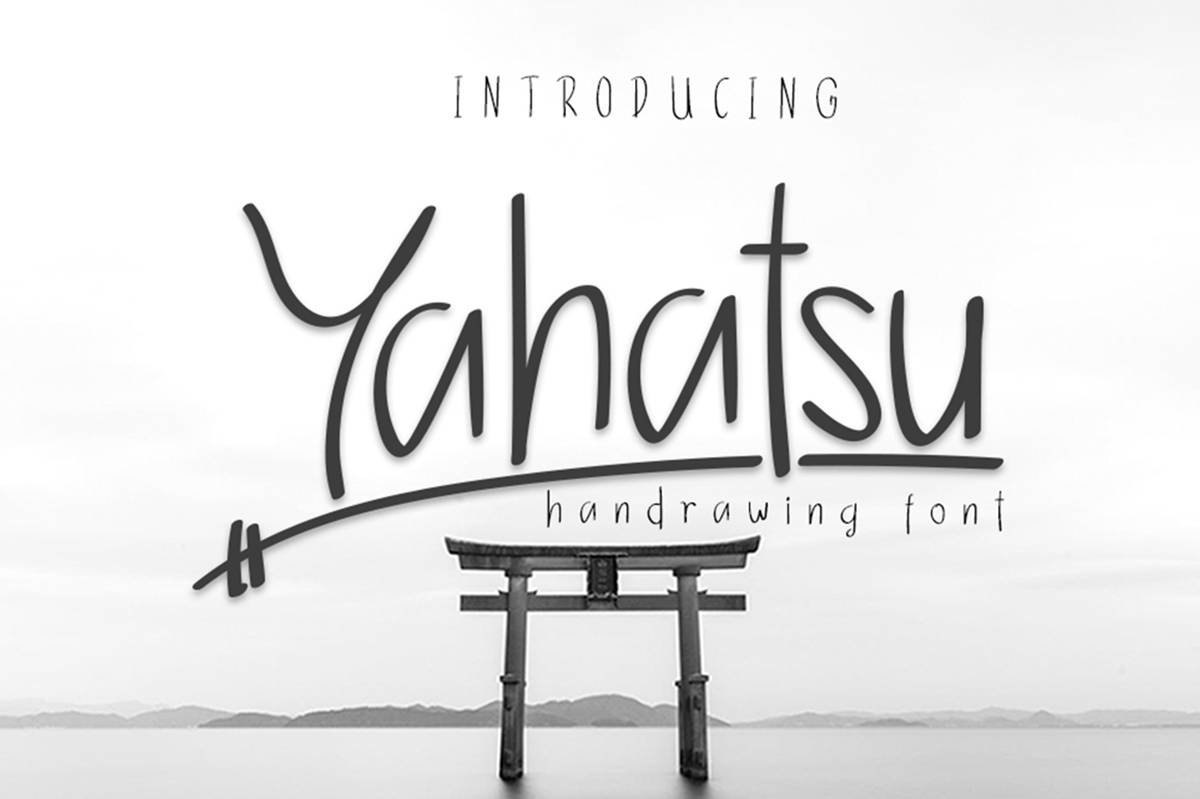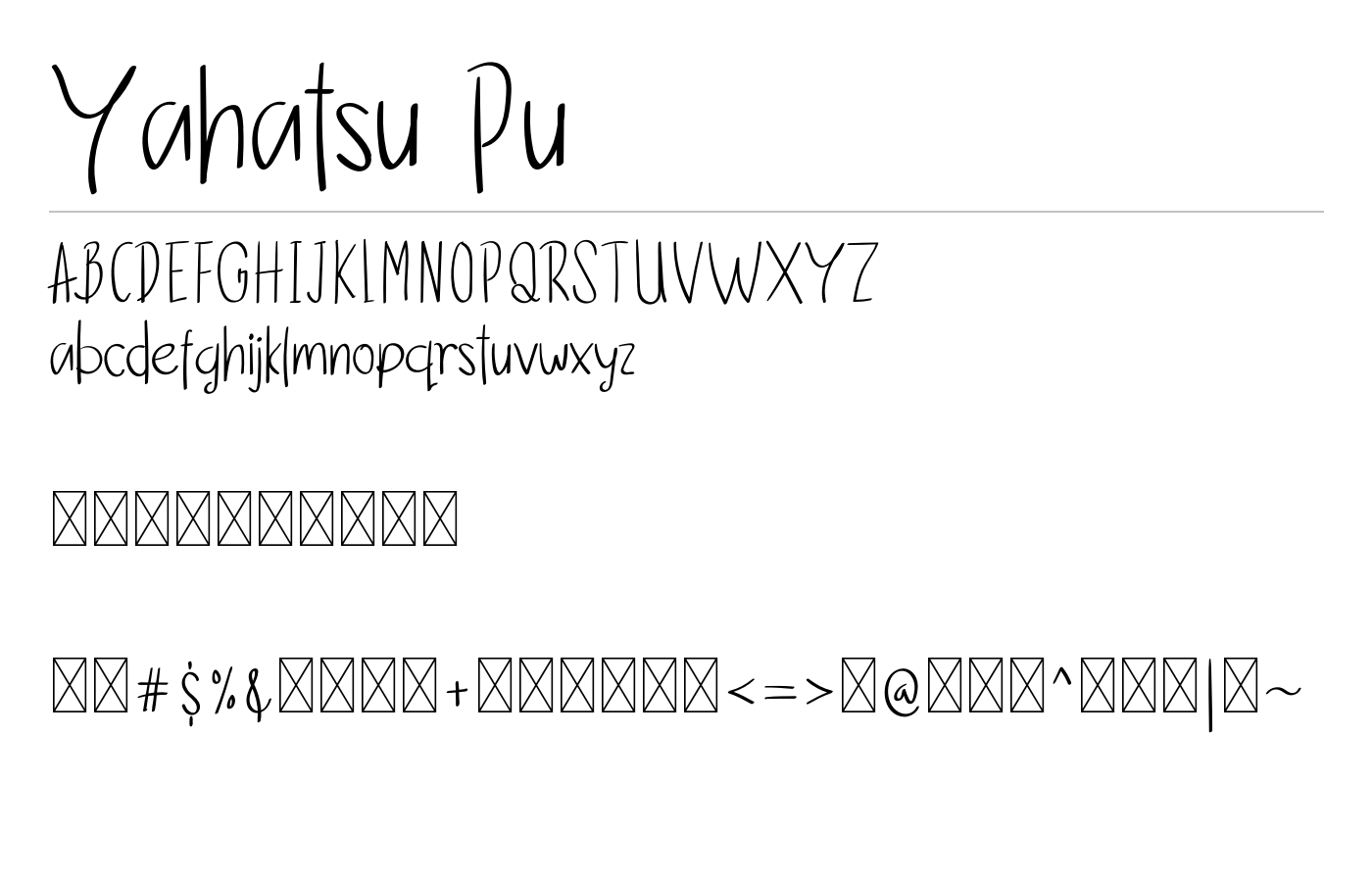
Yahatsu Font is a playful, handwritten sans serif with tall, narrow letterforms and a light weight that gives it a casual, friendly feel. Its irregular strokes and slight quirks make it ideal for informal designs, creative projects, and branding that aims to appear approachable and personal. This font works well for headlines, invitations, and any context where a whimsical, hand-crafted touch is desired.
Yahatsu Font